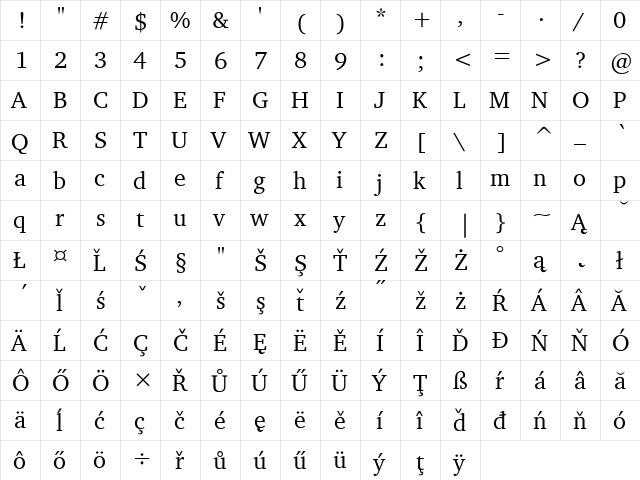
LeedsBit EuroEast Normal
Design Context for LeedsBit EuroEast Typeface
LeedsBit EuroEast offers clean, dependable letterforms without strong stylistic allegiance, making it a practical choice for designers who need flexibility.